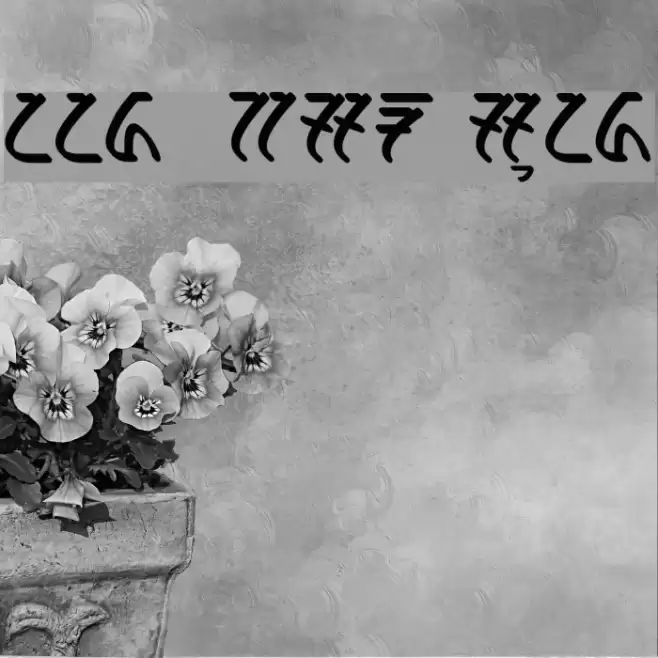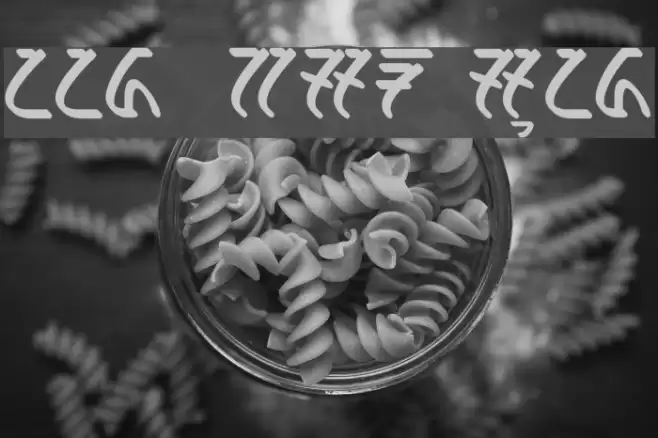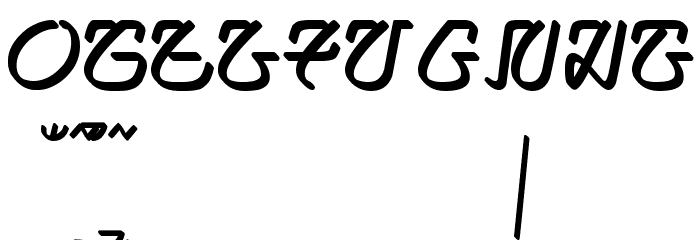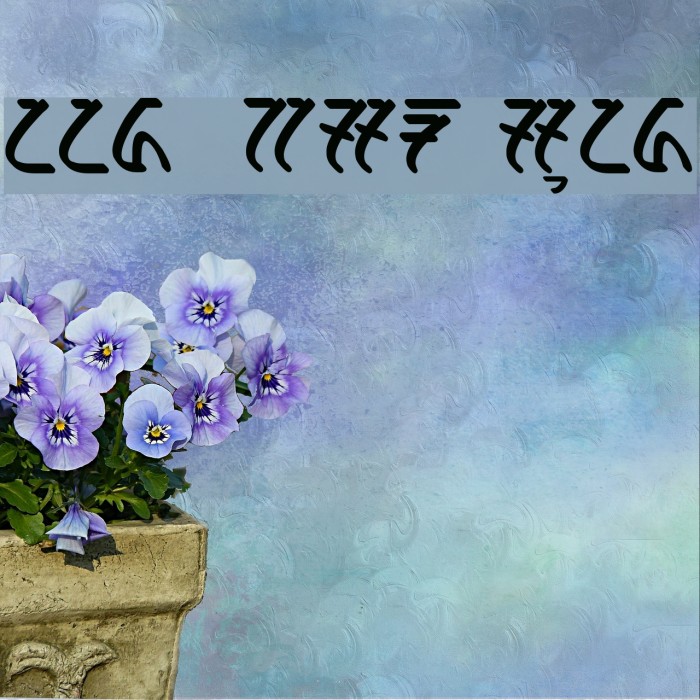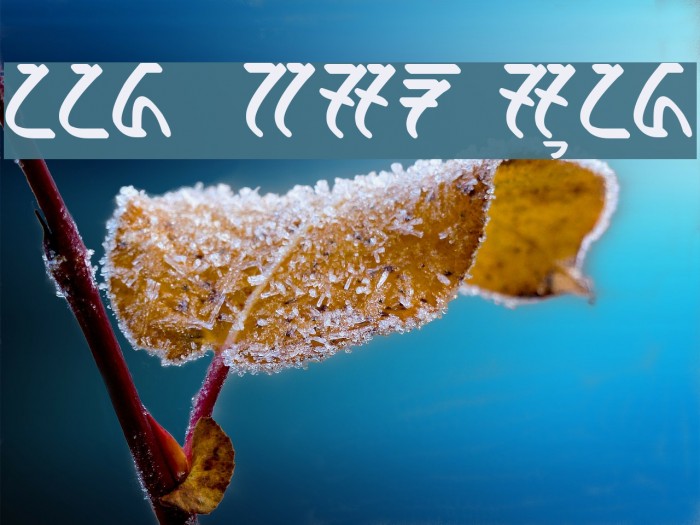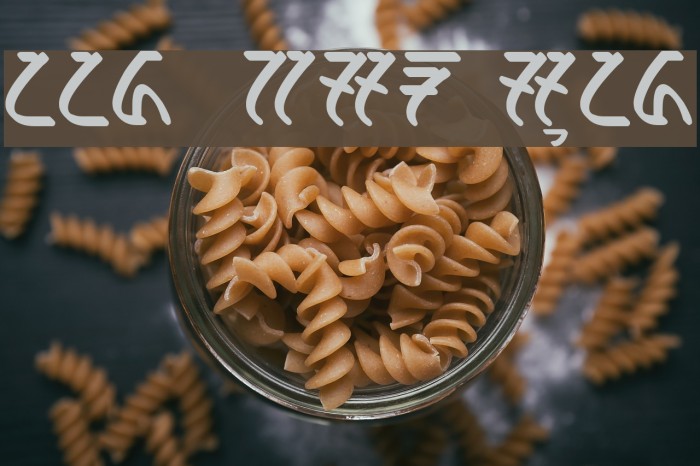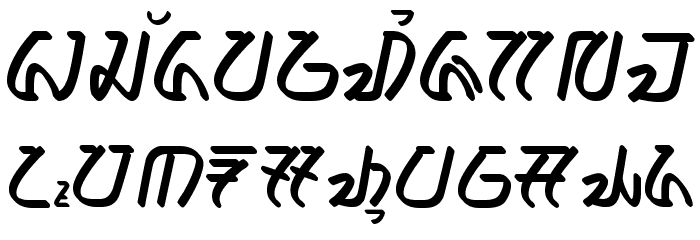
ananda - aksara sunda Font
ananda - aksara sunda Description
This font is a stylized representation of the traditional Sundanese script, characterized by its flowing, curvilinear forms and distinct cultural aesthetics. The script features unique glyphs that are both decorative and functional, capturing the essence of Sundanese heritage. The characters are designed with a medium contrast in stroke thickness, providing a balanced visual weight. The overall style is decorative and culturally significant, making it ideal for projects that aim to celebrate or incorporate Sundanese culture.
A decorative font inspired by traditional Sundanese script with flowing, curvilinear forms from Uncategorized fonts.
- Proposed Projects: Ideal for cultural projects, educational materials on Sundanese language, artistic designs, and heritage-themed branding.
- Use Case: Logos, Cultural projects, Educational materials